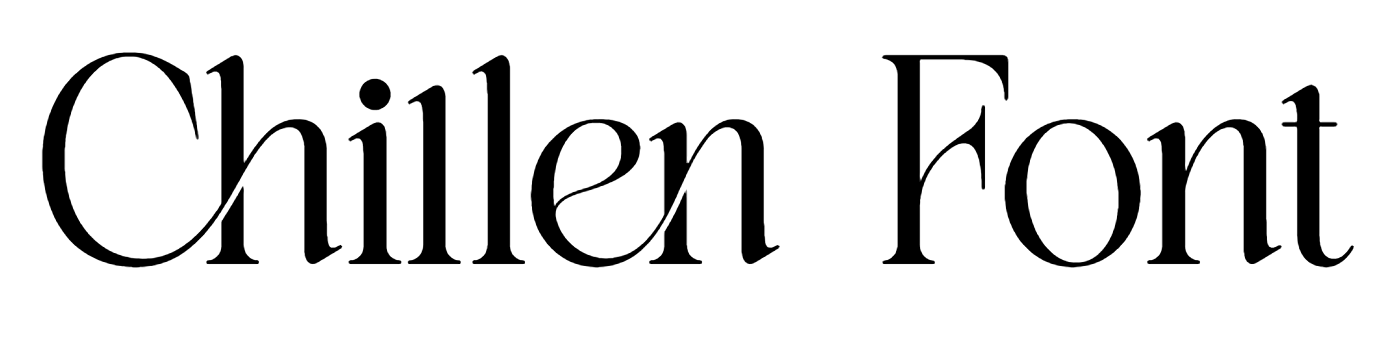
Chillen
Chillen is a serif font made by Toni Studio (2024). Small strokes at the ends of its letters (the serifs) give it a classic, trustworthy look. It's a free download, and you can try it with your own text in the preview above first.
- Extra characters: 10 copy-and-paste alternates (Private Use Area)
What You Can Type With Chillen
With complete upper and lowercase letters and all ten digits, Chillen is ready for real wording, not just a single headline. Everyday marks like &, !, ? and @ are there too. Thanks to its accented letters, it also works for Spanish, French, German, Portuguese and Italian, not just English.
How to Use the Alternate Letters in Chillen
Where Chillen Works Best
Chillen is a natural fit for book covers, magazine headlines and classic branding. Serif fonts shine in headlines and printed text. For long paragraphs on phones, check that it still reads well at small sizes.